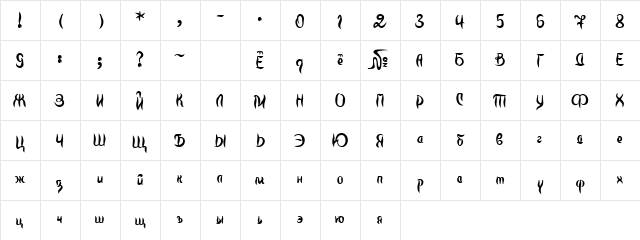
Pero Regular Free Font
Pero Regular
Design Context for Pero
Pero is a composed and adaptable typeface that performs quietly and consistently across a wide range of design contexts.